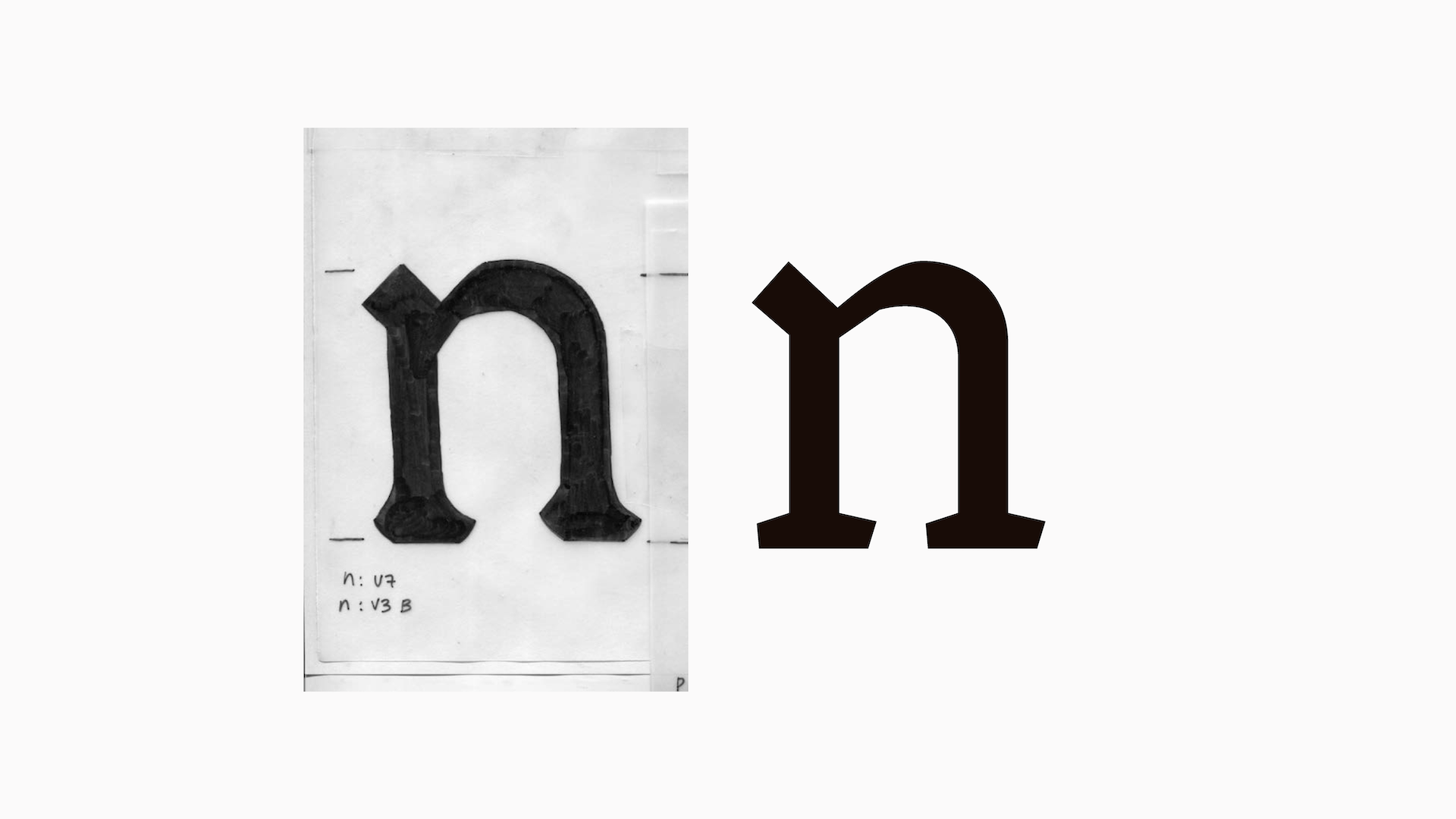
Arbog
Arbog is a typeface based on the Bible B42. The research for this typeface was therefore based on the movable type used by Johannes Gutenberg.
This duplex typeface is inspired by the Fraktur style and therefore has a German influence. However, for the sake of readability, it has been designed with a wider width to be readable in running text. The Black version is based on the same width so that the Fraktur style can be found in the identity of this font.
The city of Strasbourg wishes to organize an exhibition around the printer and his work at the castle square in Strasbourg. This is why Arbog was born. It will be used for all the logistics of this event. The name Arbog comes from the Strasbourg neighborhood “Arbogast” where Gutenberg lived. The printer Johannes Gutenberg is therefore the subject of this typographic realization as well as of this exhibition. It was during the visit to the printing house in Lyon that I decided to work on Gutenberg’s movable type because we had the chance to see a copy of the B42 Bible in this museum.
During my typographic creation I encountered various problems:
-Making the Fraktur style readable
-To link the rounded aspect to the more angular one
-Not to lose the basic identity
-To be readable in a plain text
And so on…
These different issues were my main focus during Type Paris 22. A lot of feedback was about my choices. Should I create a more angular or more rounded typeface? Well, I decided to mix the two. The Fraktur look bothered me because I saw a lot of angles in it. I didn’t want the typography to look aggressive. So I decided to keep my angular strokes and serifs and make the curves with a bigger width to give a more Roman look. The idea is not to criticize the Fraktur but to make it more suitable for our current influences.
The speakers asked me to assume my choices but not to fall into a caricature. This balance has been my problem throughout my typography. It was during the meeting with Ian Party that I asked a question that didn’t really have an answer: “When do we reach the limit of our typeface, when do we go too far or not far enough” to which he replied: “It’s up to you”. So I decided to trust myself and correct myself, even though in some aspects I did not see everything.